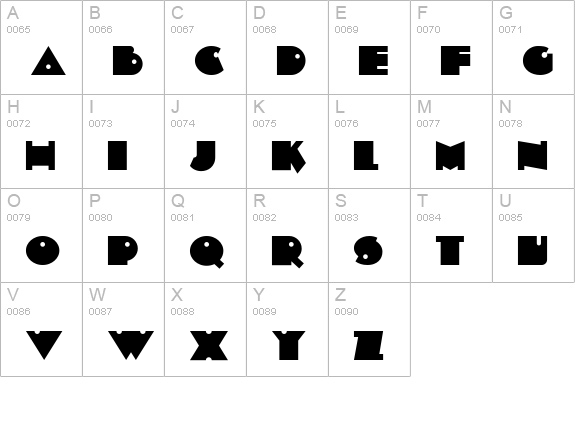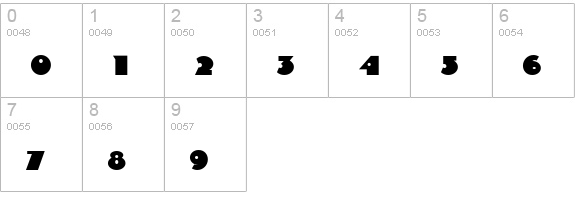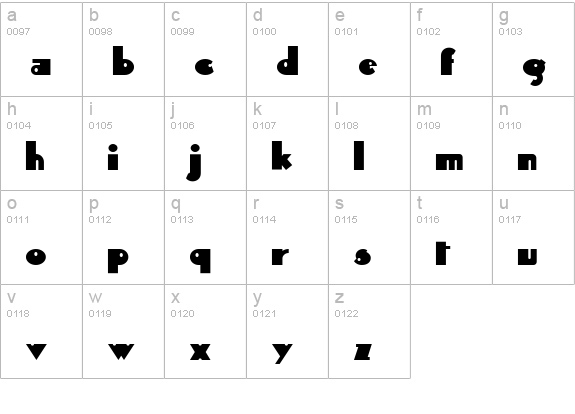
Sid The Kid NF font is a visually striking and versatile typeface that exudes a sense of youthful energy and modernity. With its bold letterforms and playful design, this font is perfect for adding a touch of personality to any project. Whether you're creating posters, logos, or social media graphics, Sid The Kid NF font will make your text pop and stand out. Best of all, Sid The Kid NF font is available for free download at FontsMarket.com. This means you can easily access and use this dynamic font in your designs without any cost. Embrace the creativity and fun that Sid The Kid NF font brings to your projects today!